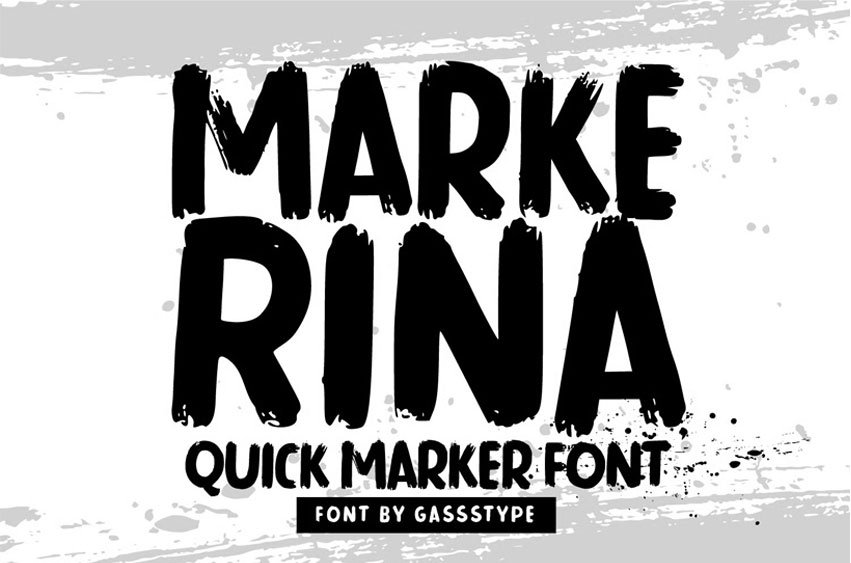
Markerina Fon Marker Brush Font is a bold and expressive typeface that mimics the natural strokes of a thick marker pen. With its energetic brush style and casual feel, it’s perfect for posters, social media graphics, branding, and creative projects that need a strong, handmade touch.